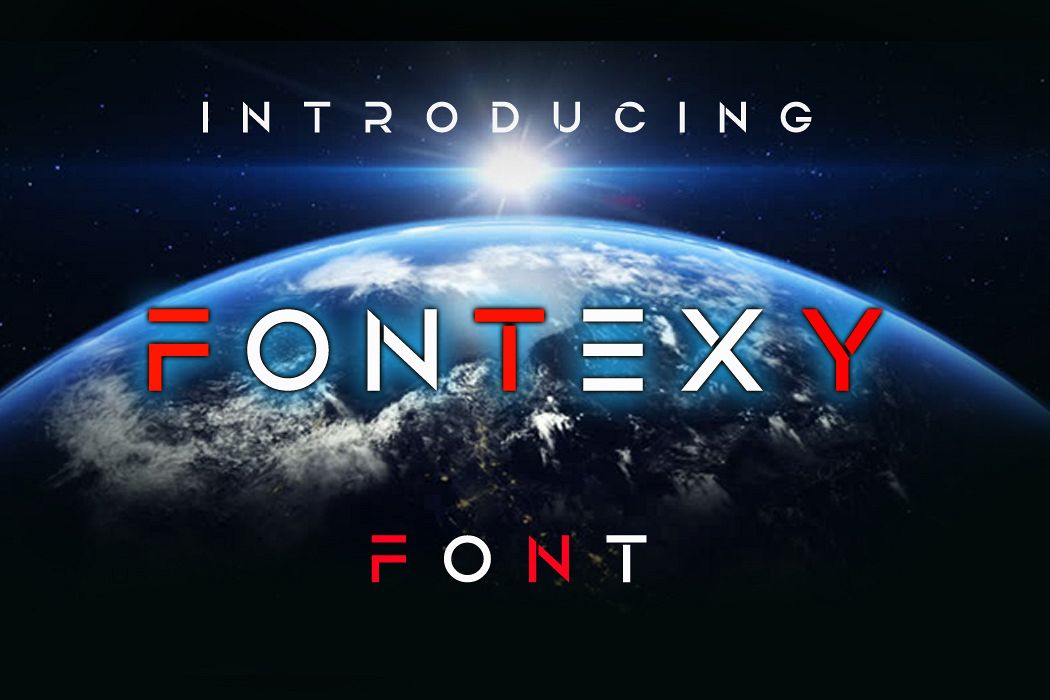
Fontexy Font
The FONTEXY is a modern typeface with simple, yet strong look. It has a good readability and includes geometric shapes which makes it perfect for modern designs.
- Uppercase A-Z
- Lowercase A-Z (Smaller size)
- Multilingual support